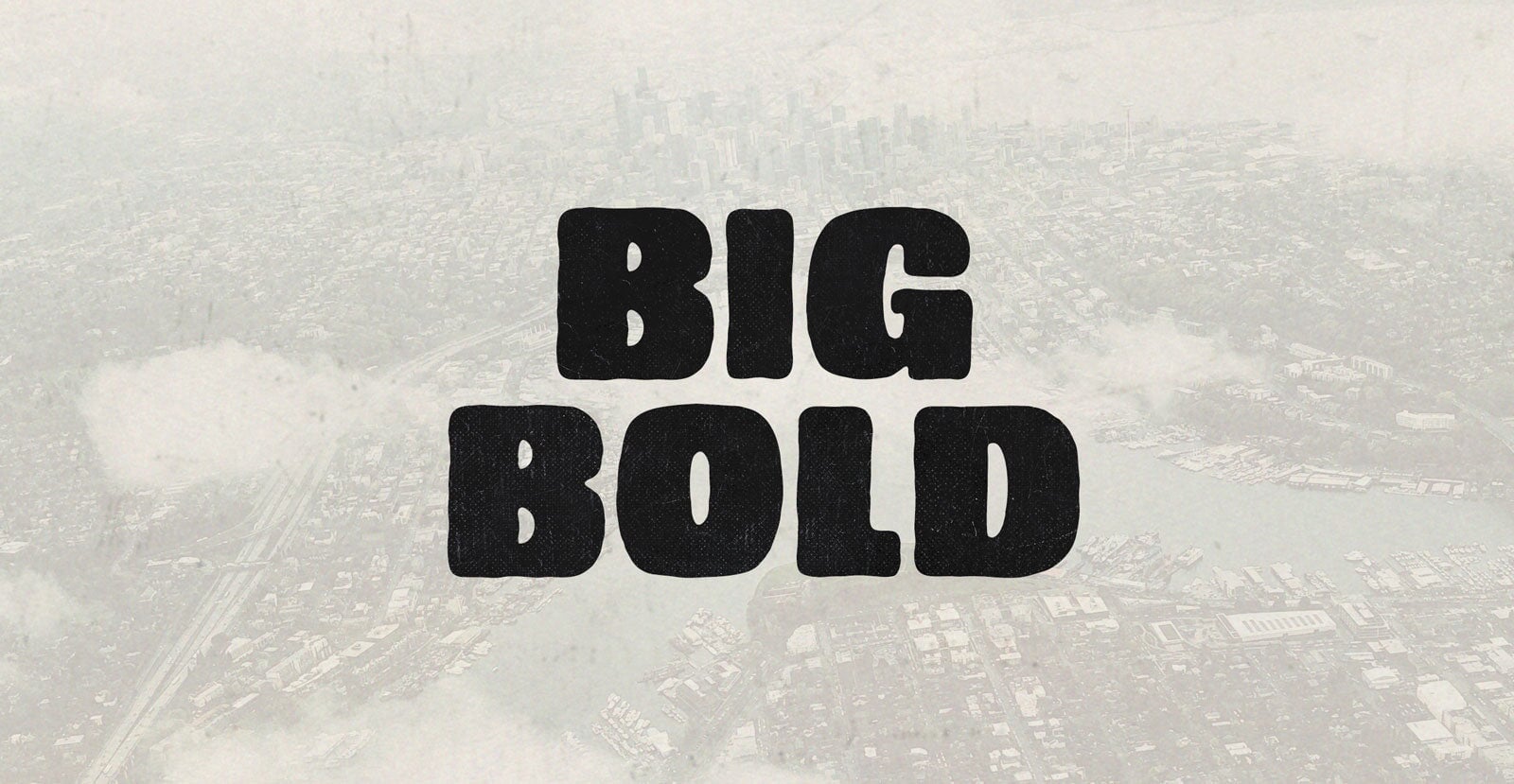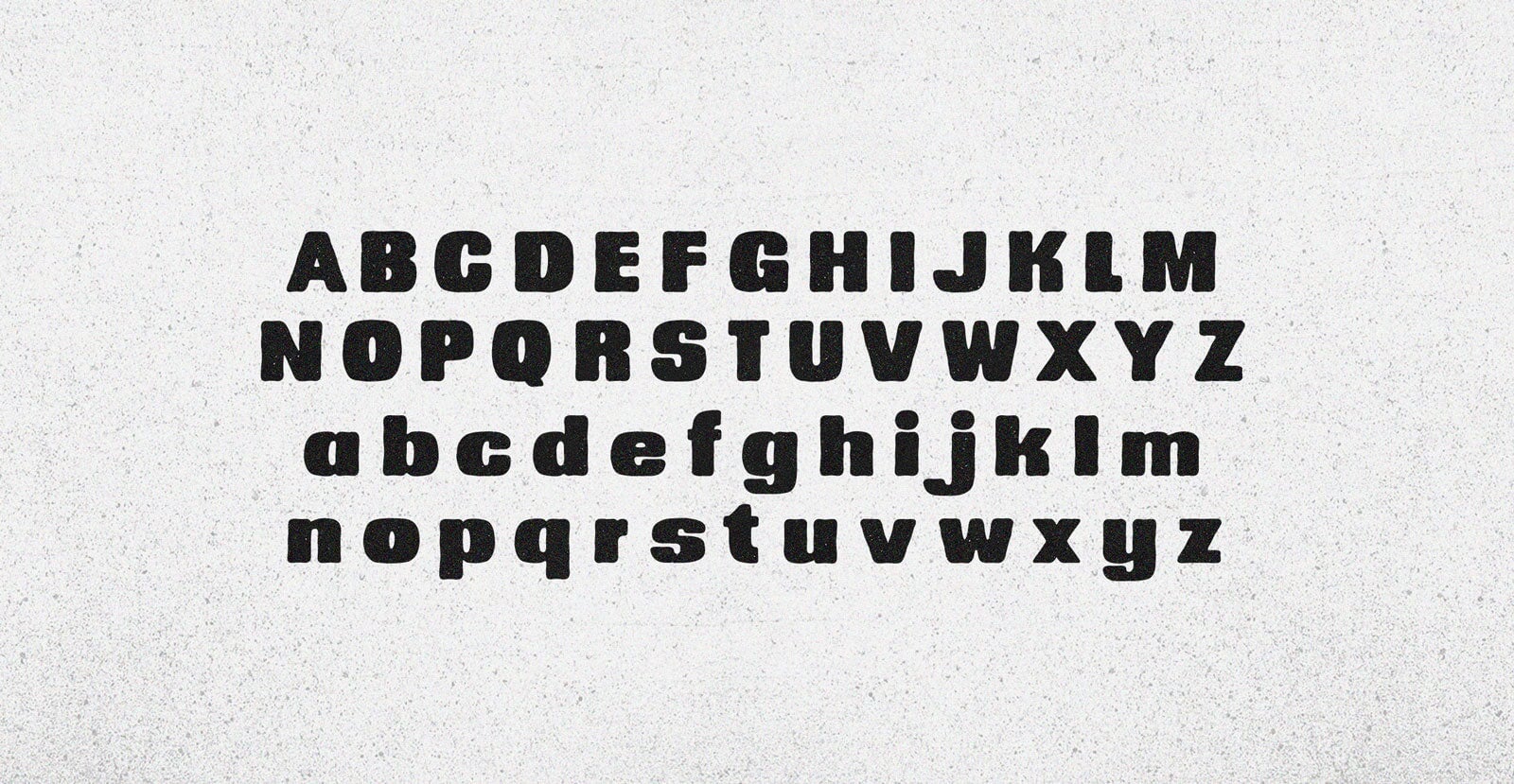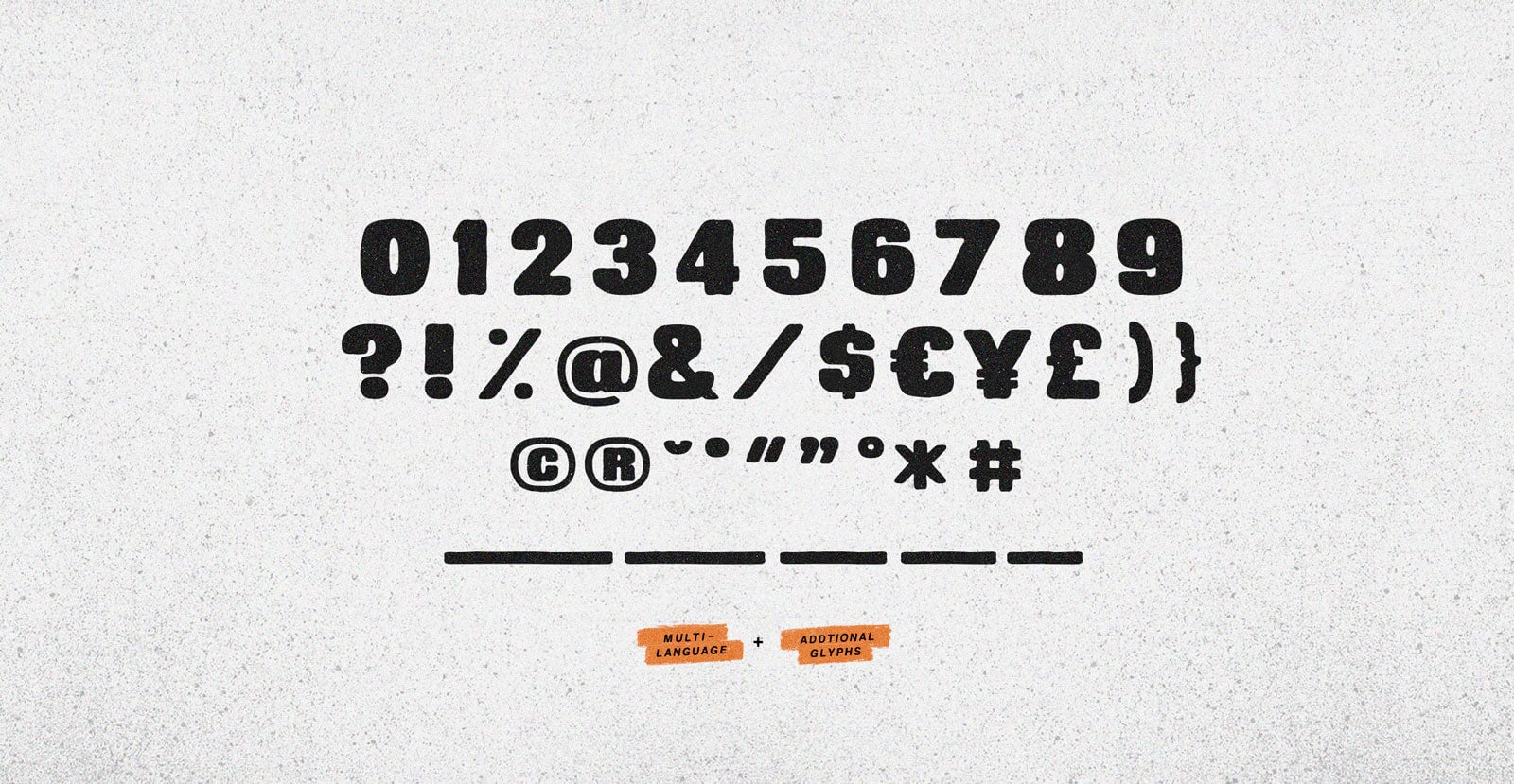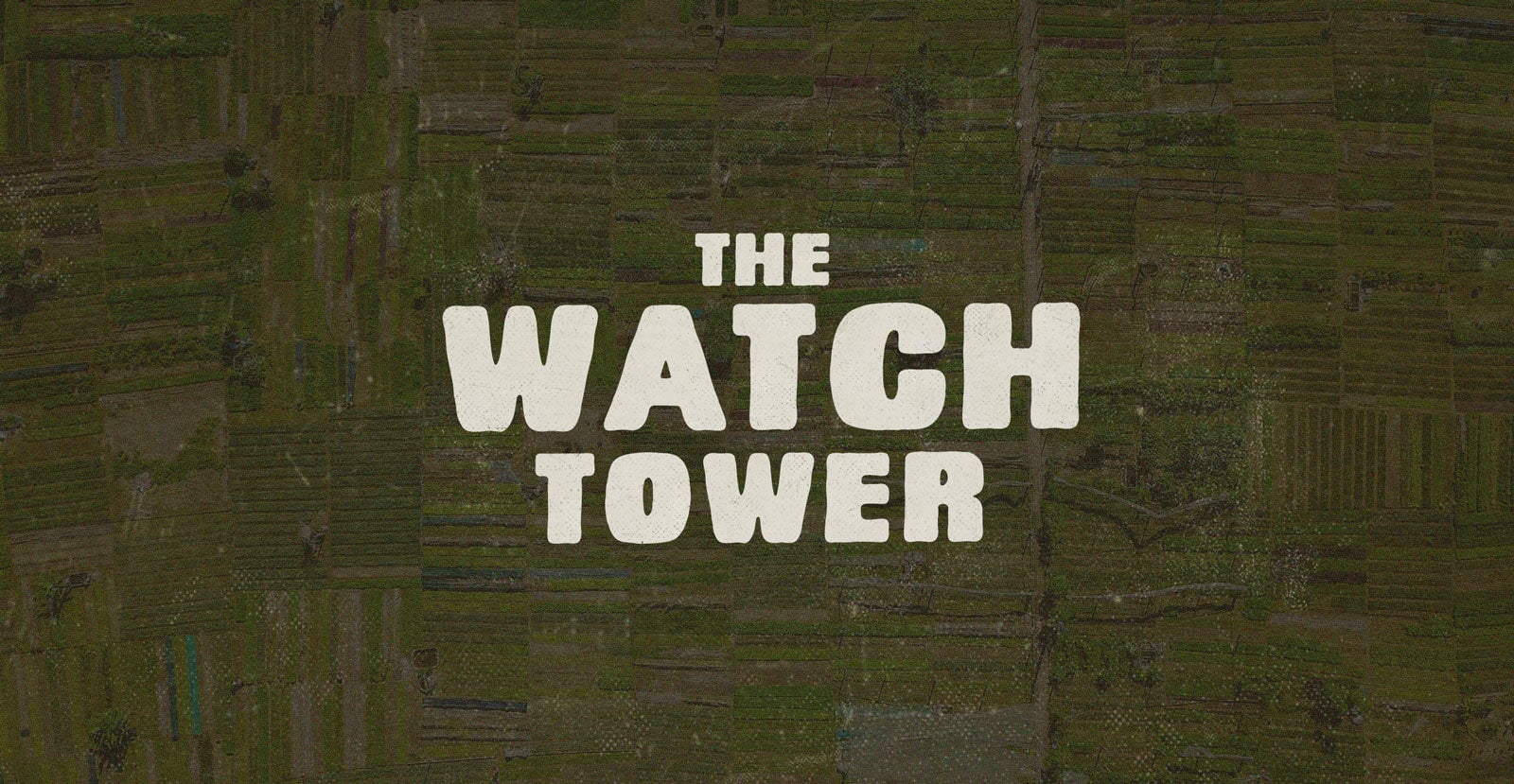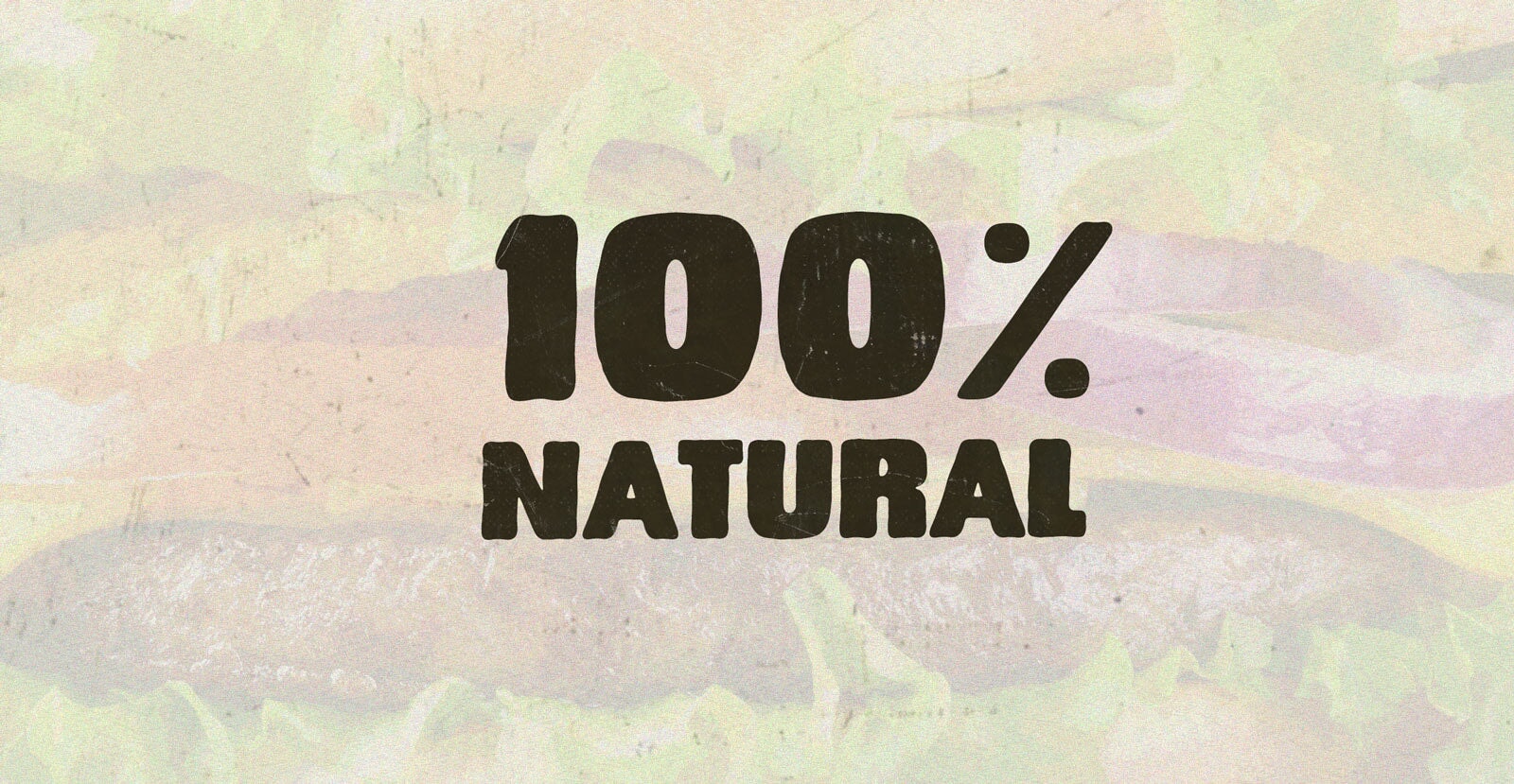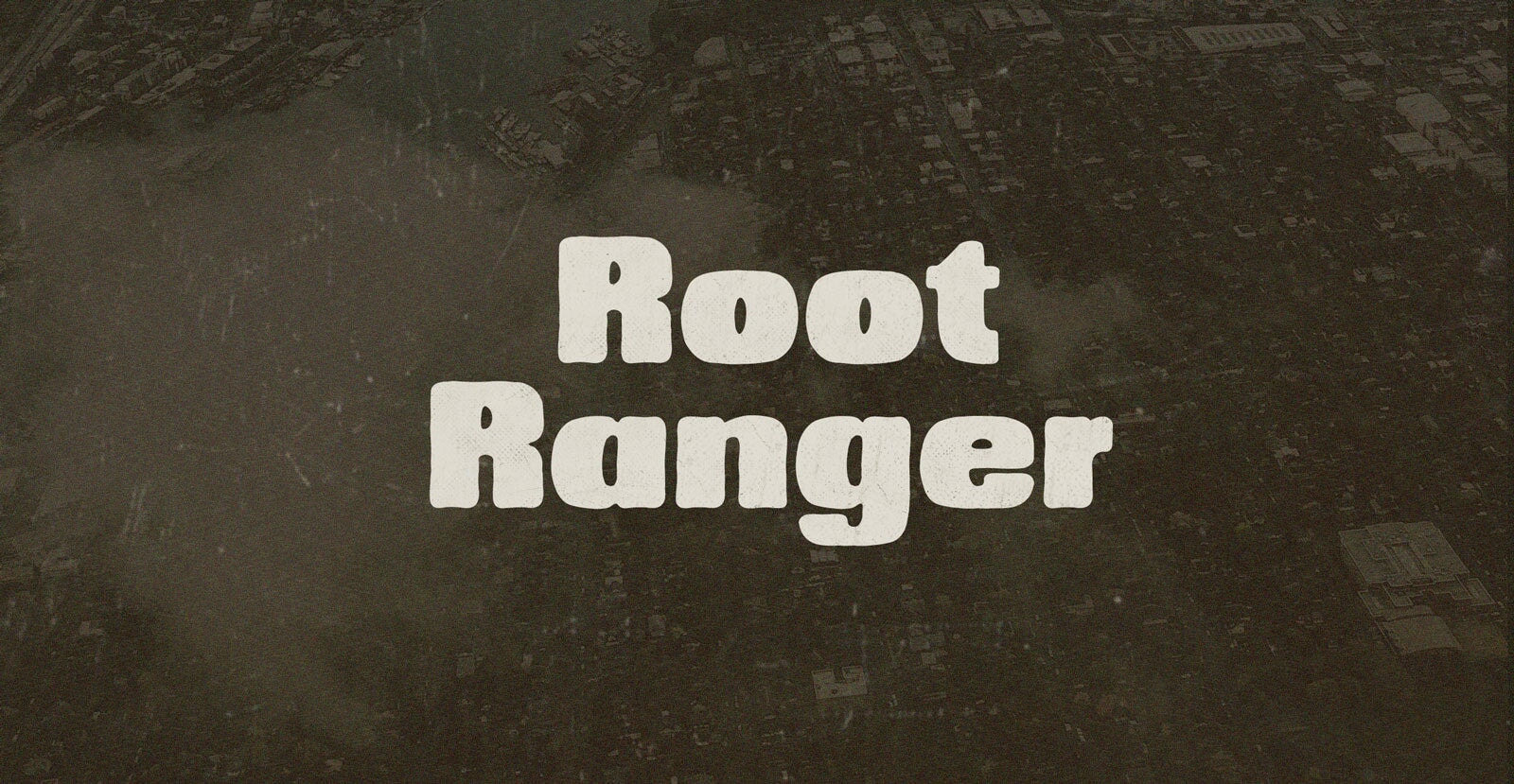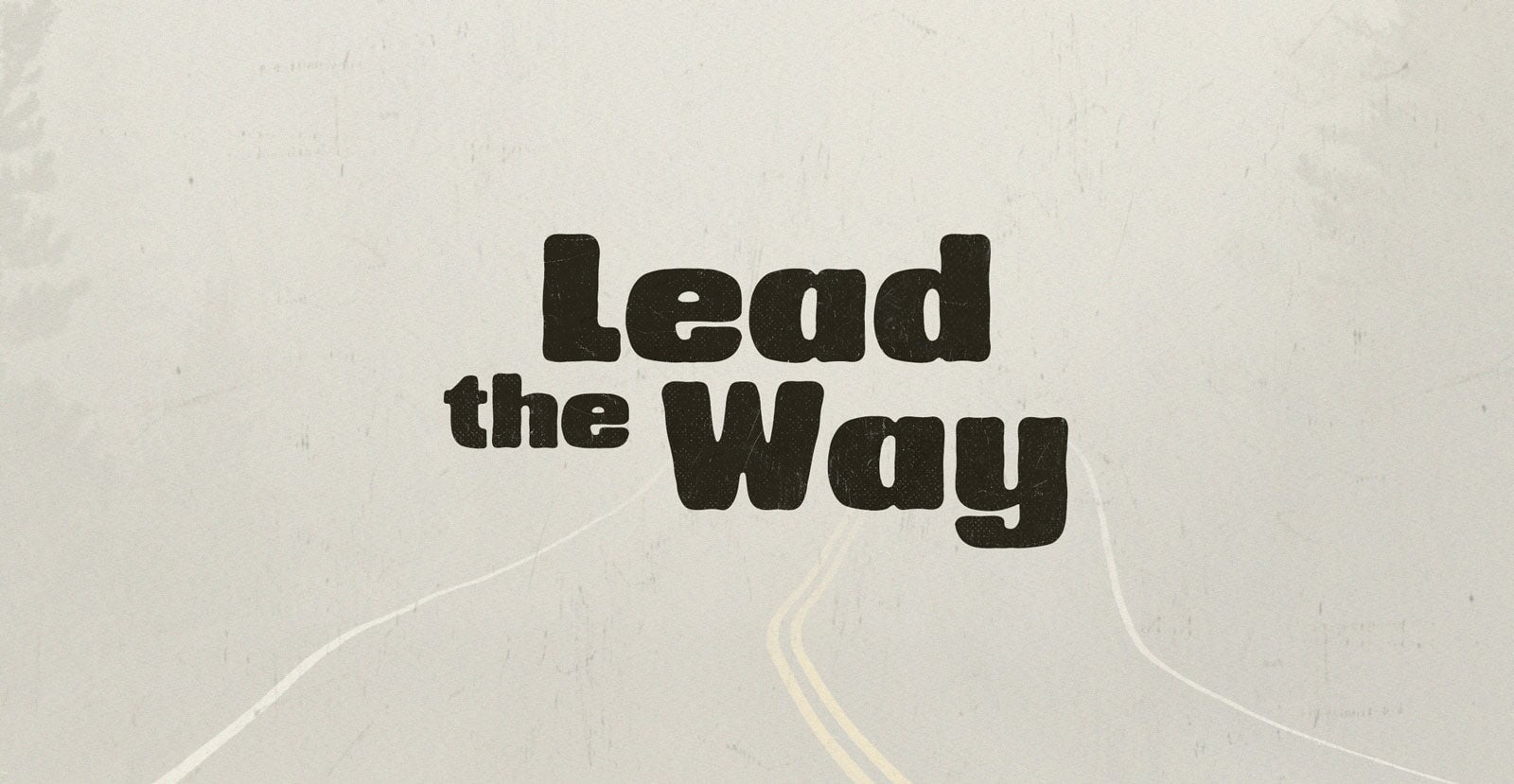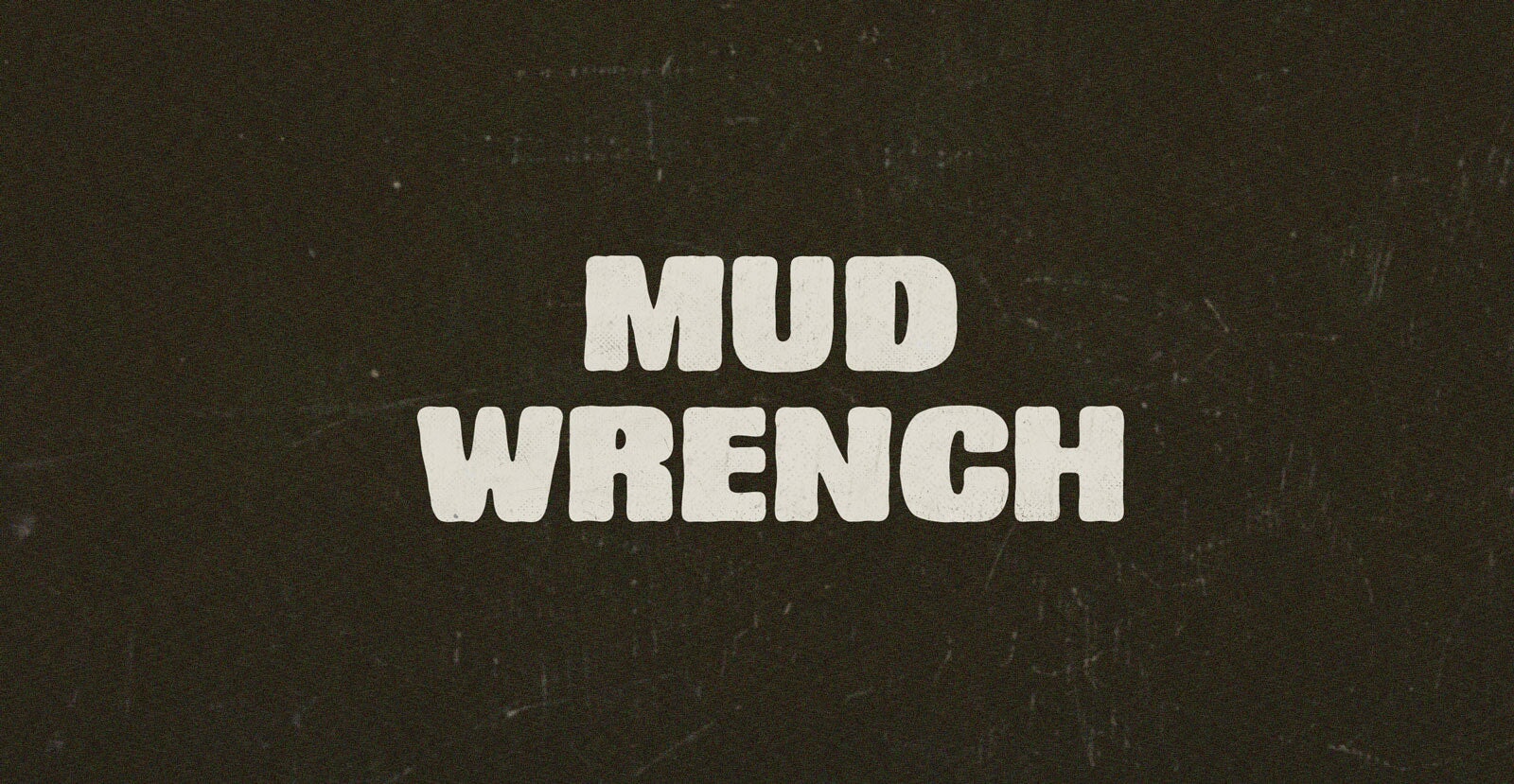
Big Bold
Handwritten Sans Serif Font
Substantial swords, the audacious, taciturn wordsmith, Raynor, crafted phrases with an unexpected finesse that breathed life into realities yet unimagined. With a heart pounding like a drummer’s beat, dancing fervently across the parchment in a symphony of lexical warfare, crafting luminous sentences that surged and transformed into a colossal phoenix of Big Bold. The mythical clashed with the beast, a violent tussle shaking the universe's framework.